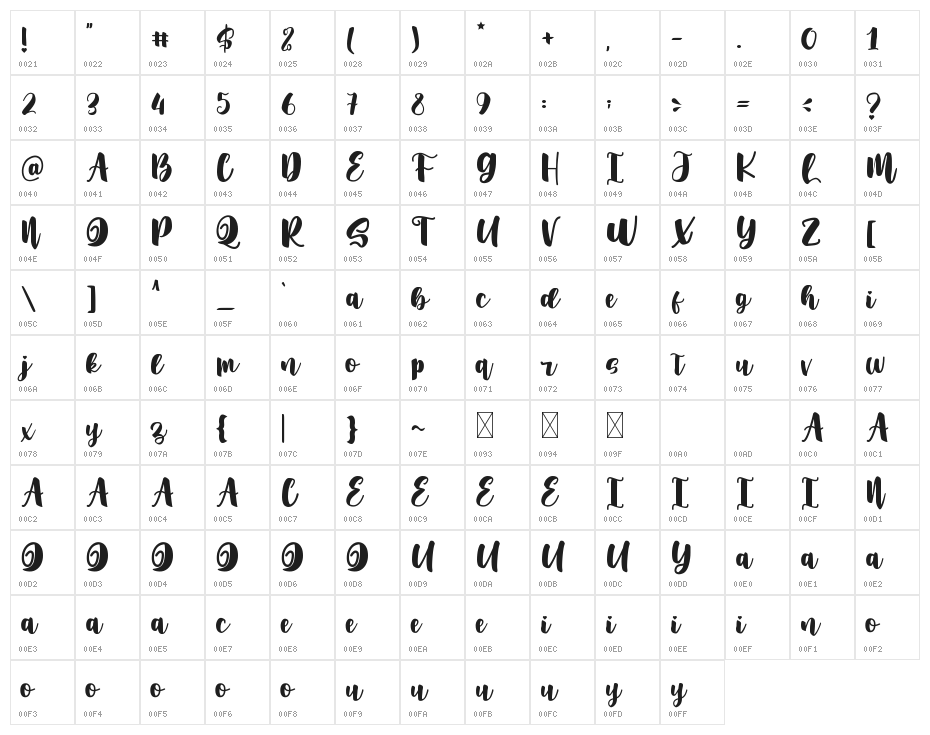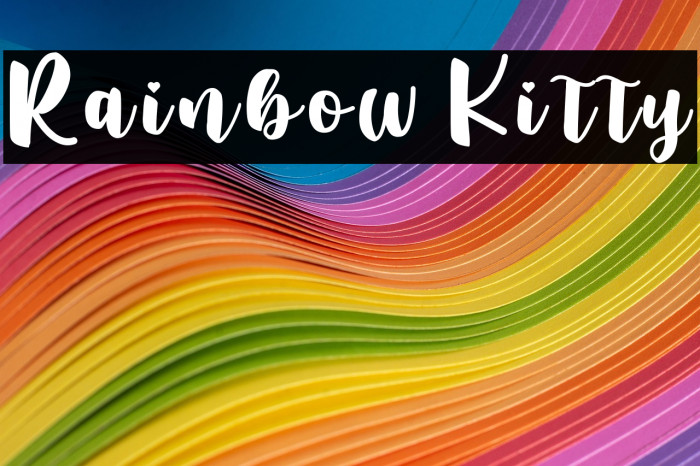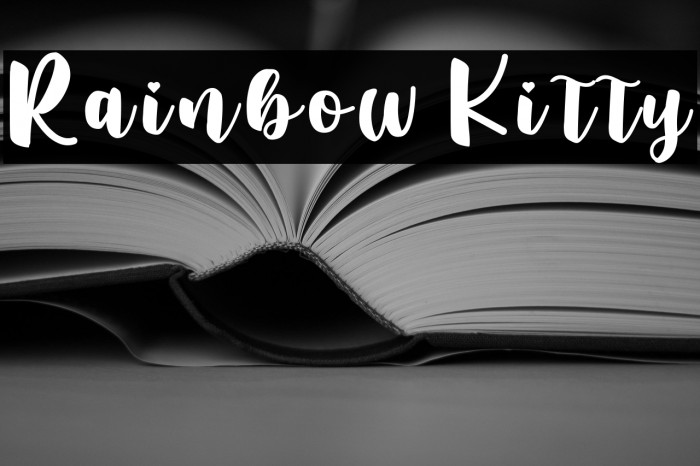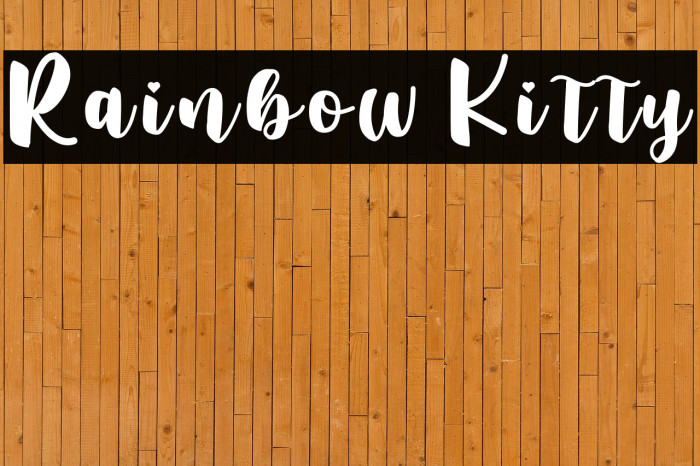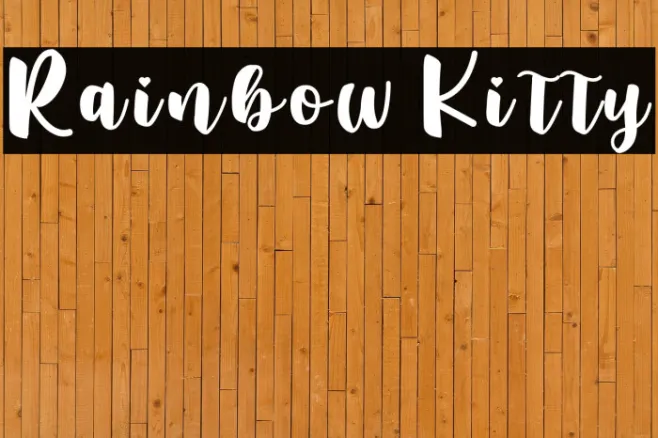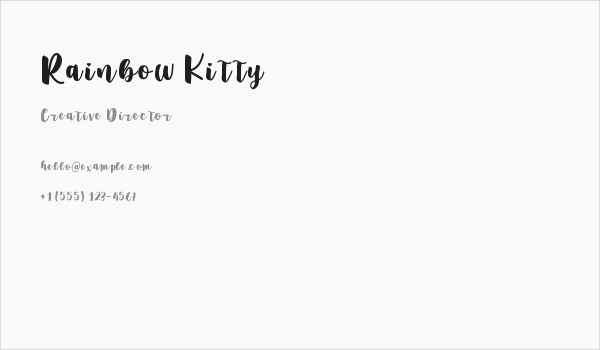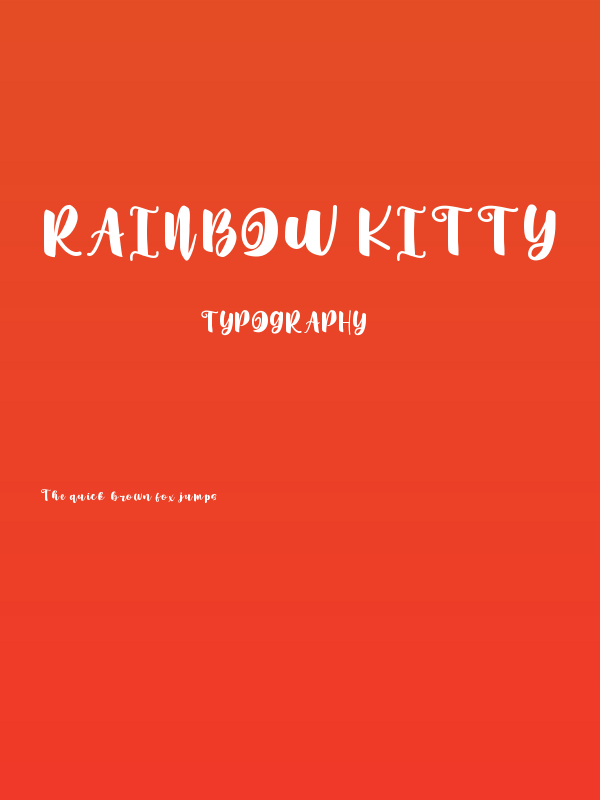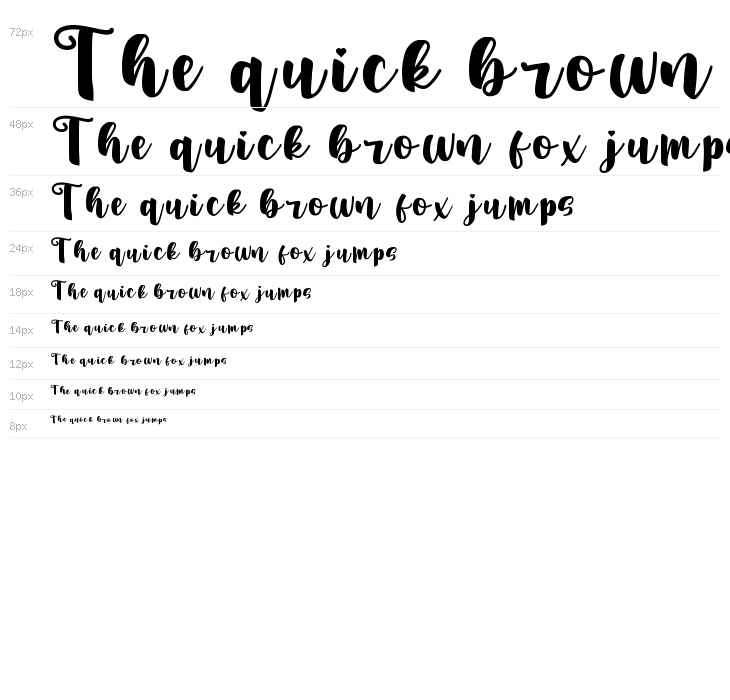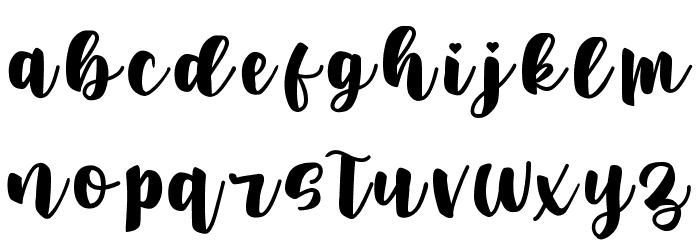
Rainbow Kitty Font
Rainbow Kitty Description
This font features a playful and whimsical script style with a bold presence. The characters are rounded and connected, giving it a handwritten feel. The uppercase letters are slightly more structured, while the lowercase letters have a flowing, cursive quality. The numbers and special characters maintain the same playful aesthetic, with some characters incorporating unique flourishes. This font is ideal for projects that require a fun and lively touch, such as invitations, greeting cards, or playful branding.
| Proposed Projects | Ideal for invitations, greeting cards, playful branding, and creative projects requiring a lively touch. |